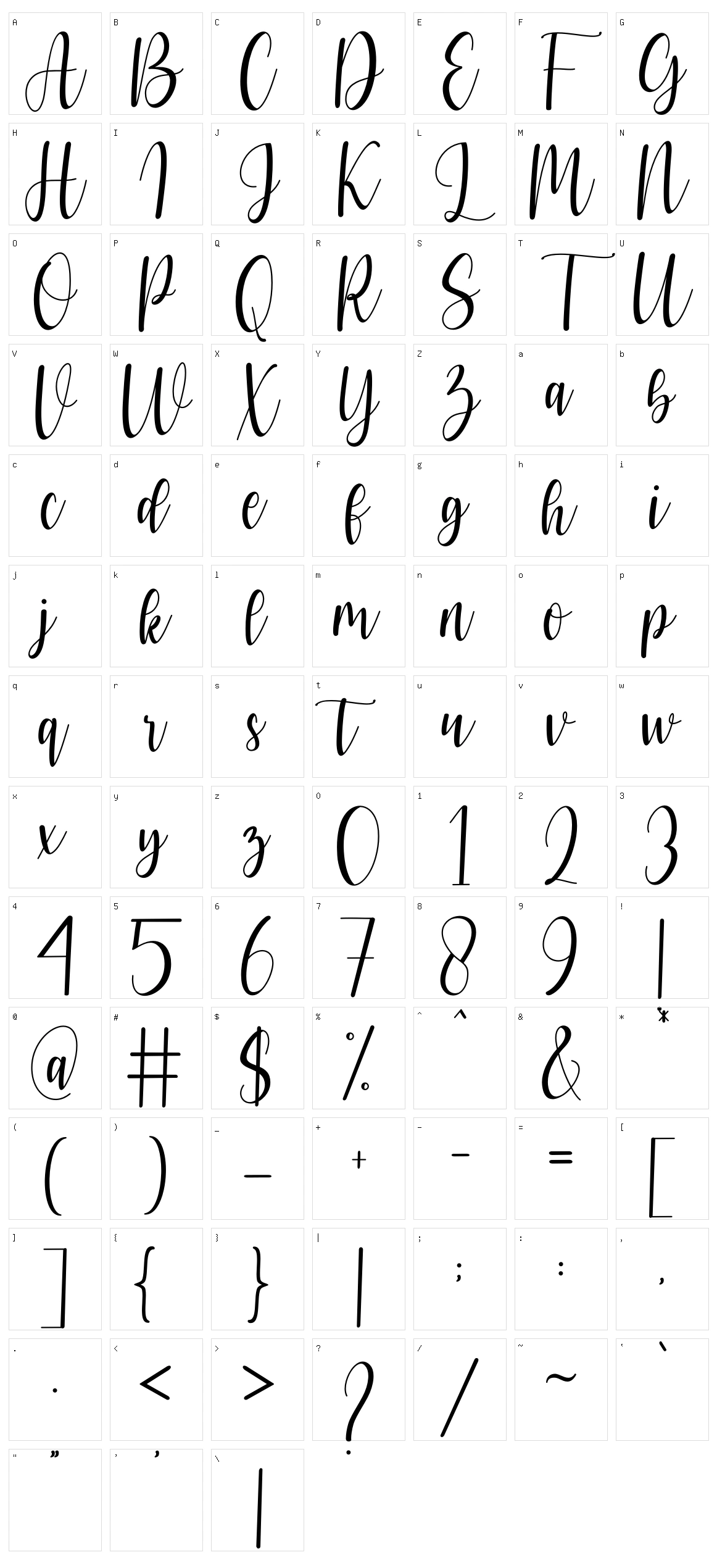
The free font Pearl White is carefully designed by Fikryal studio, showcasing a thoughtful balance of creativity and usability and falls under the Script font style. When you download the ZIP file, it contains only 90.05 KB of font files, making it lightweight and quick to download. Please review the license details below to understand permitted usage and distribution rights. If license information is not available, we recommend using this font for personal projects only or contacting the author directly for commercial usage permissions.